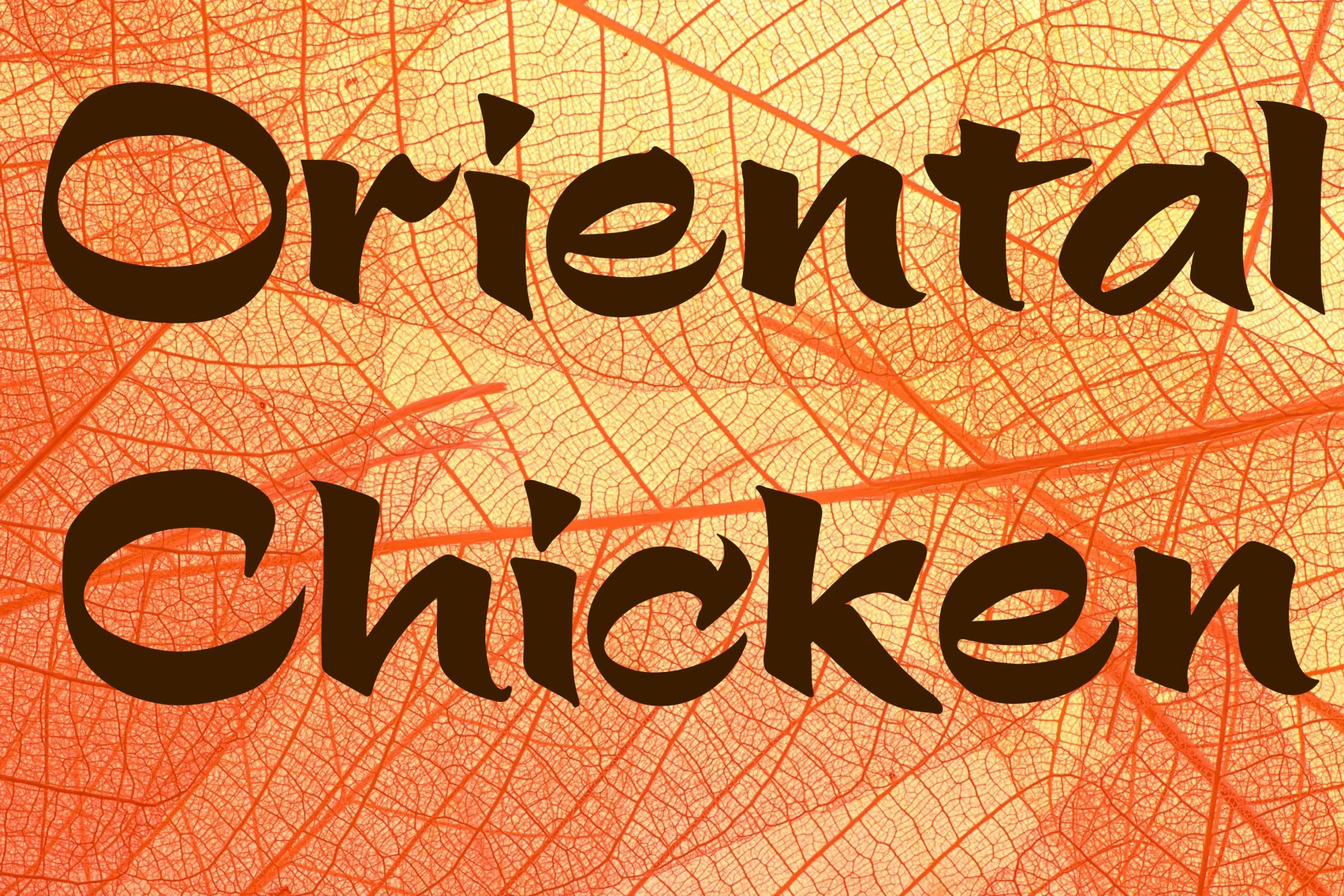
Oriental Chicken Font
Oriental Chicken Font is a quirky and decorative display font with a playful, hand-drawn style that brings a fun, whimsical touch to your designs. Its unique letter shapes make it perfect for posters, titles, kids’ projects, social media graphics, and creative branding.